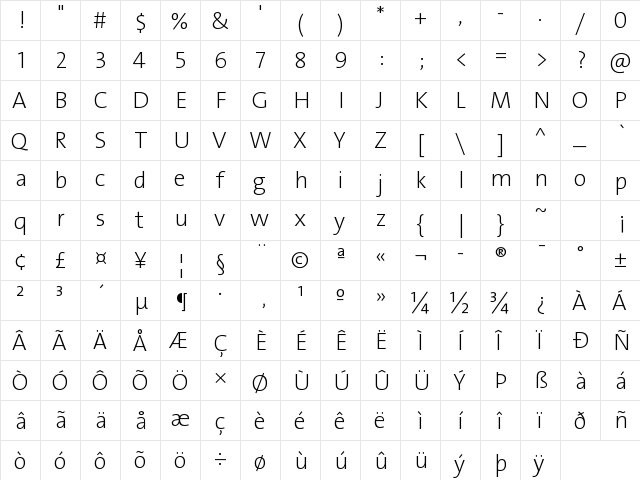
Bahij TheSansArabic Regular Font Preview
Bahij TheSansArabic Regular
Bahij TheSansArabic Regular Font Details
| Foundry | Tiro Typeworks for Adobe Systems Incorporated. |
| Designer | Tim Holloway (Arabic) and Robert Slimbach (Latin) |
Design Context for Bahij TheSansArabic Typeface
Bahij TheSansArabic offers clean, dependable letterforms without strong stylistic allegiance, making it a practical choice for designers who need flexibility.